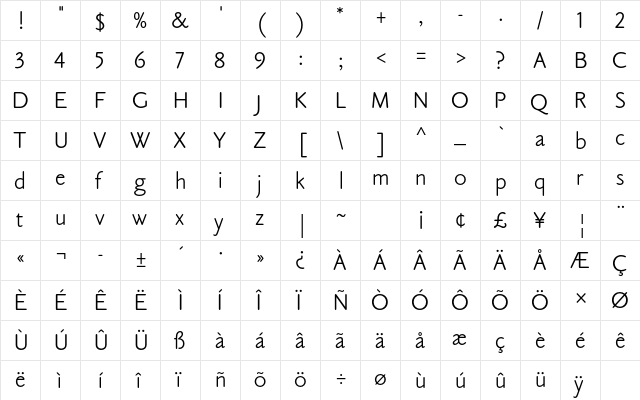
Claude Sans Std Regular
| Designer | Alan Meeks |
Design Context for Claude Sans Std Typeface
Claude Sans Std offers clean, dependable letterforms without strong stylistic allegiance, making it a practical choice for designers who need flexibility.